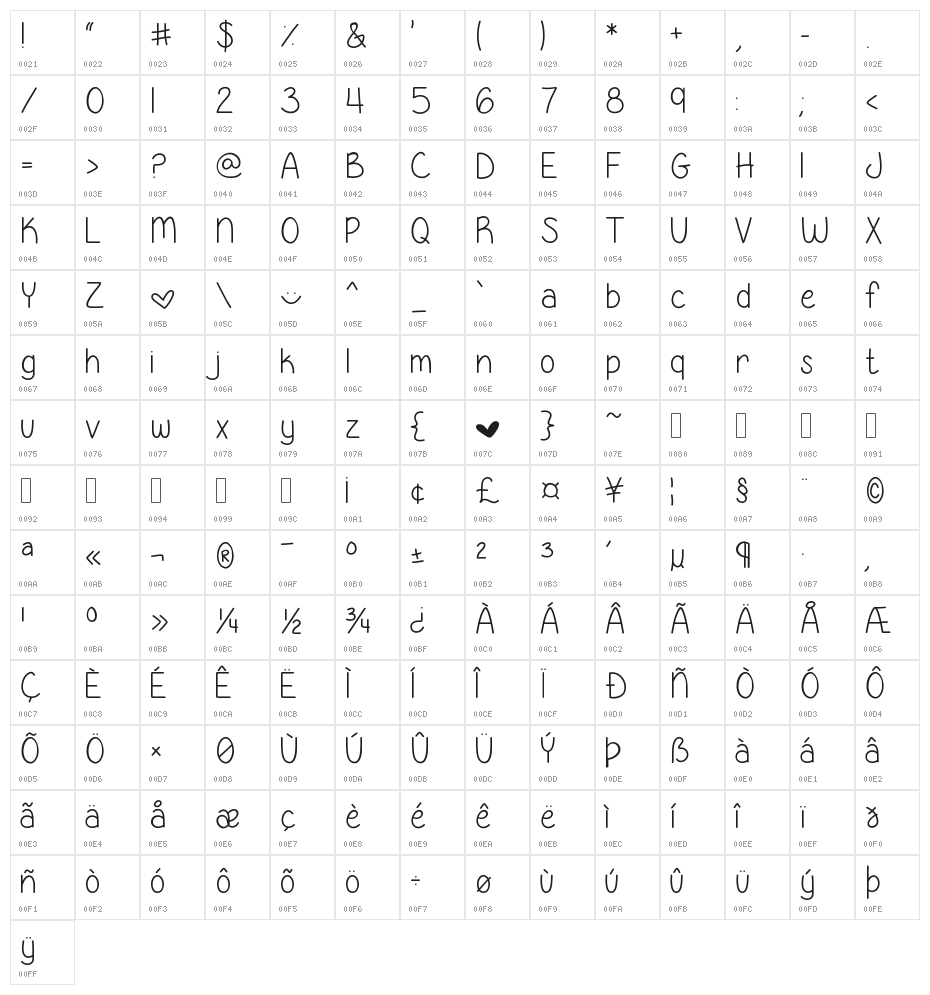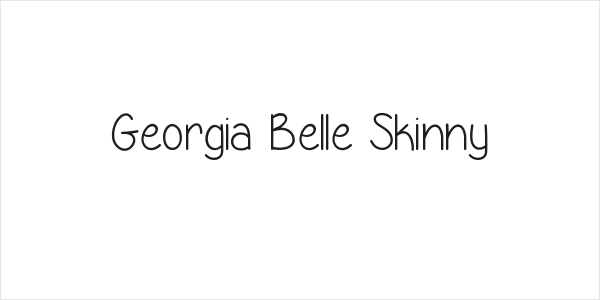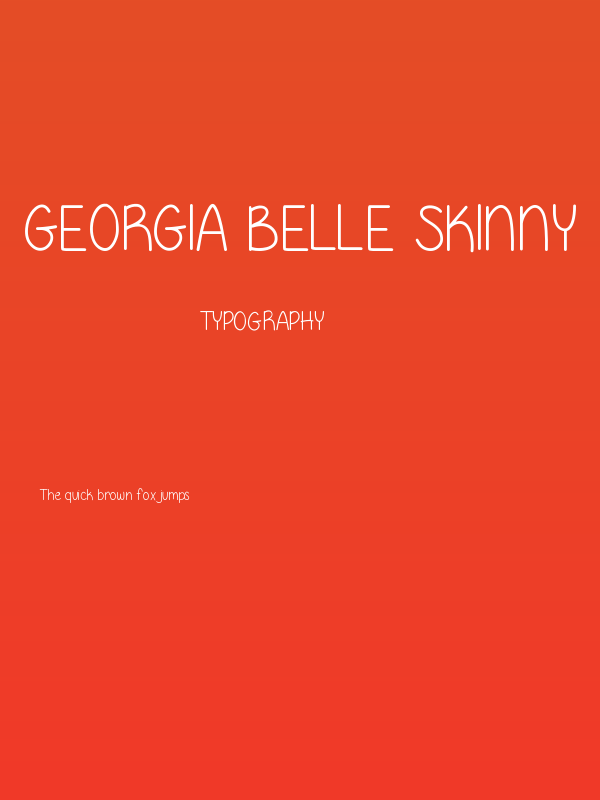
Georgia Belle Skinny Font
Georgia Belle Skinny Description
This font features a playful and whimsical design with rounded, thin strokes that give it a light and airy feel. The characters are tall and slightly narrow, with a consistent stroke width that maintains a clean and modern appearance. The uppercase letters have a unique charm with their elongated forms, while the lowercase letters complement them with a friendly and approachable style. The numerals and special characters are designed to match the overall aesthetic, making this font versatile for various creative projects.
| Proposed Projects | Ideal for children's books, playful branding, greeting cards, and casual invitations. |